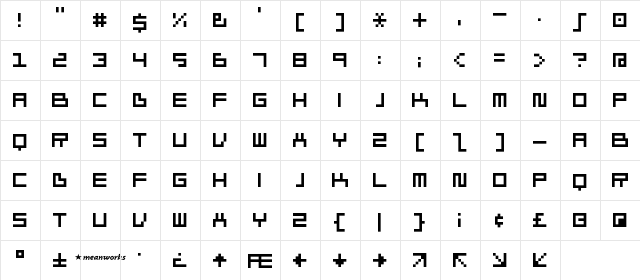
Ivorg Regular
Design Context for Ivorg Typeface
Ivorg takes a measured approach to typography — its balanced proportions and neutral character make it a reliable workhorse for both digital and print work.